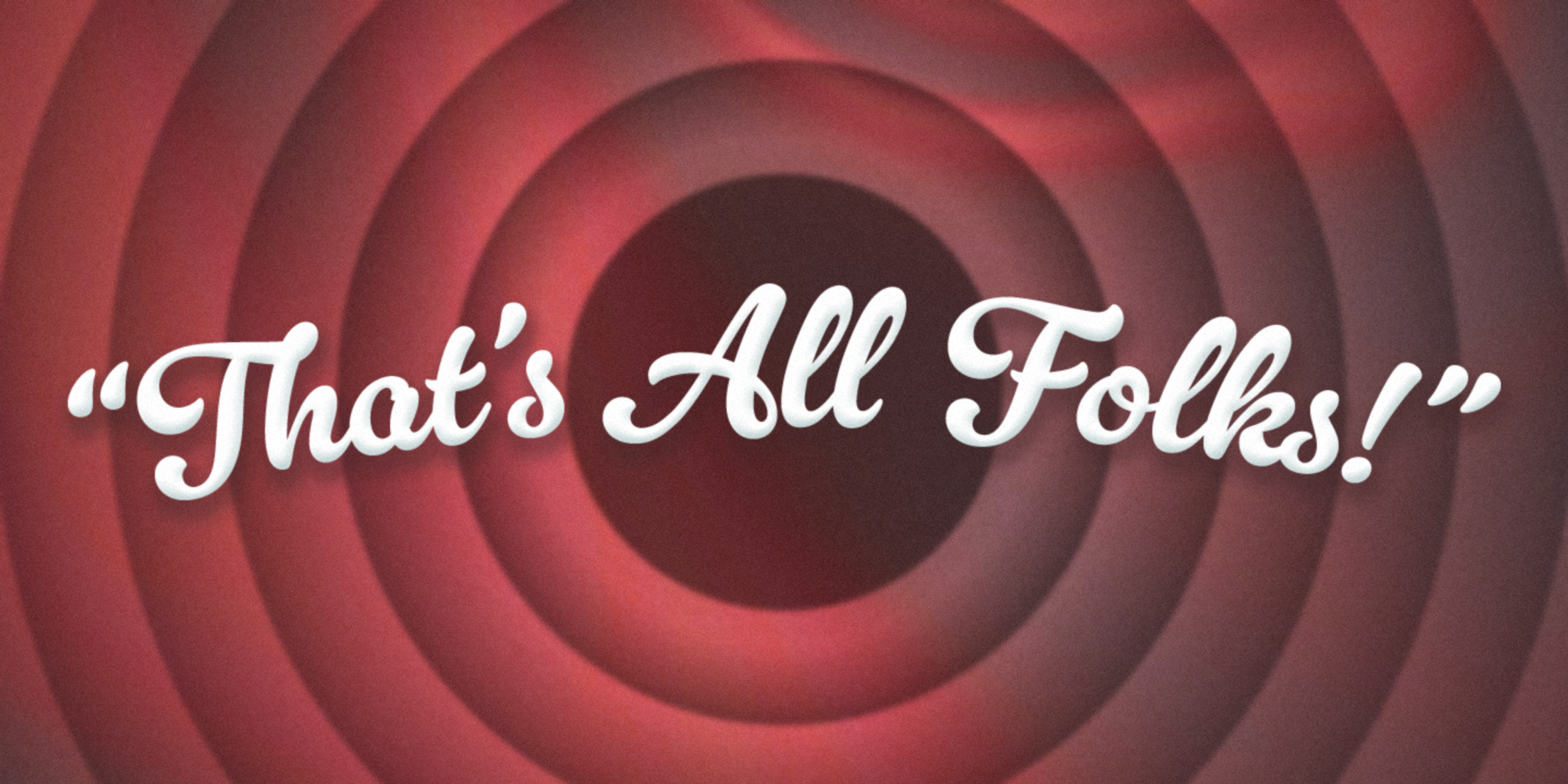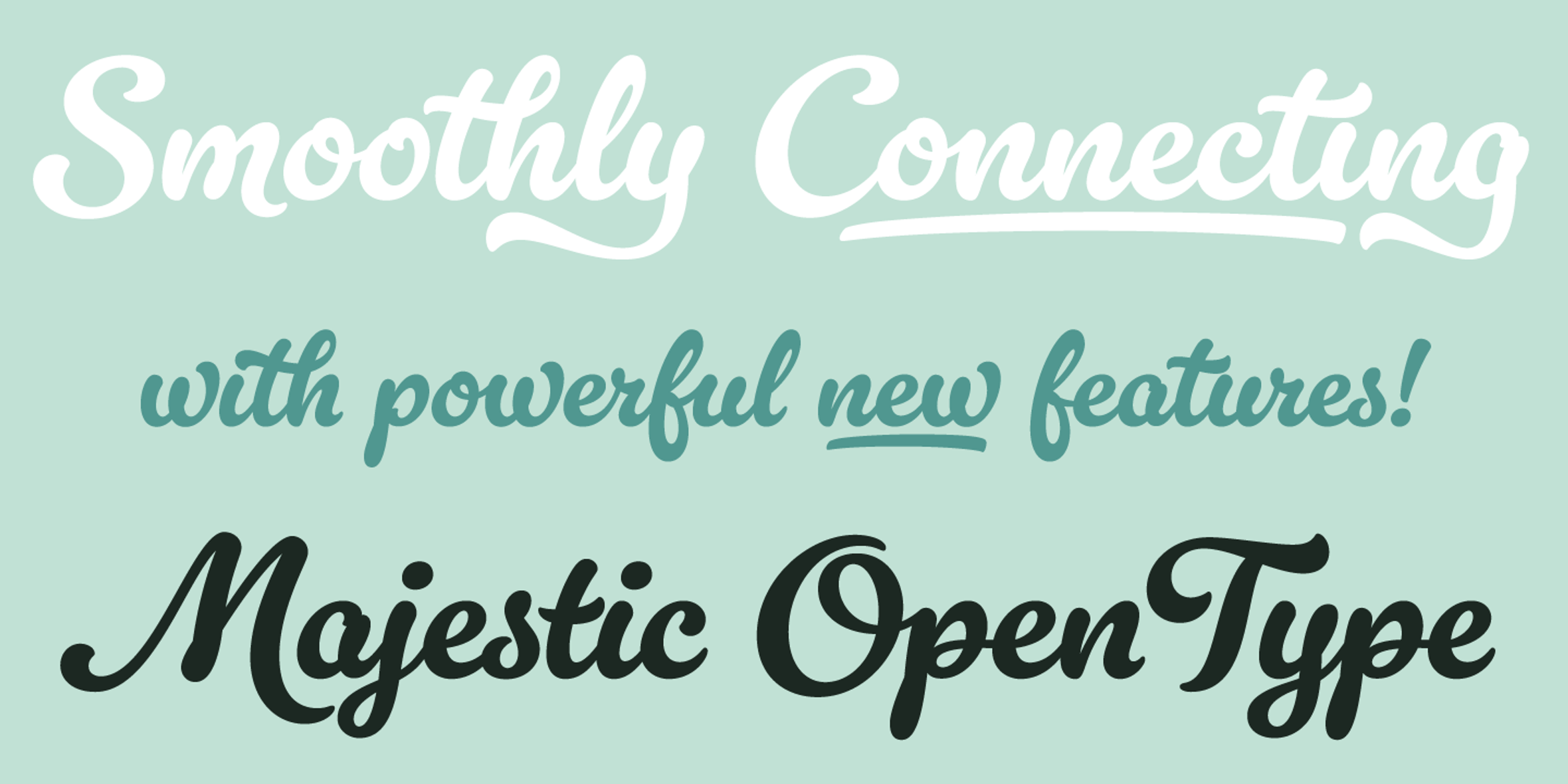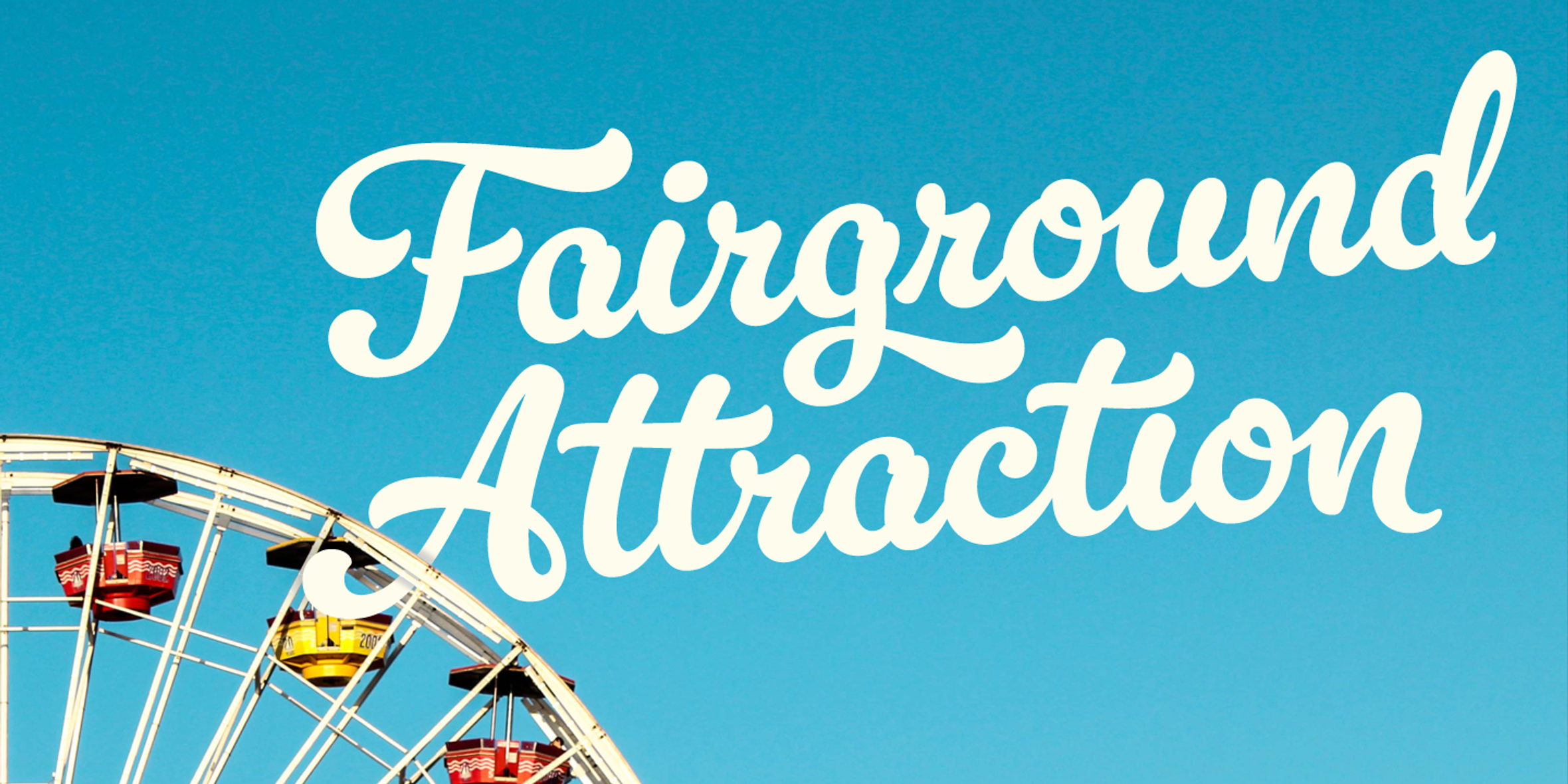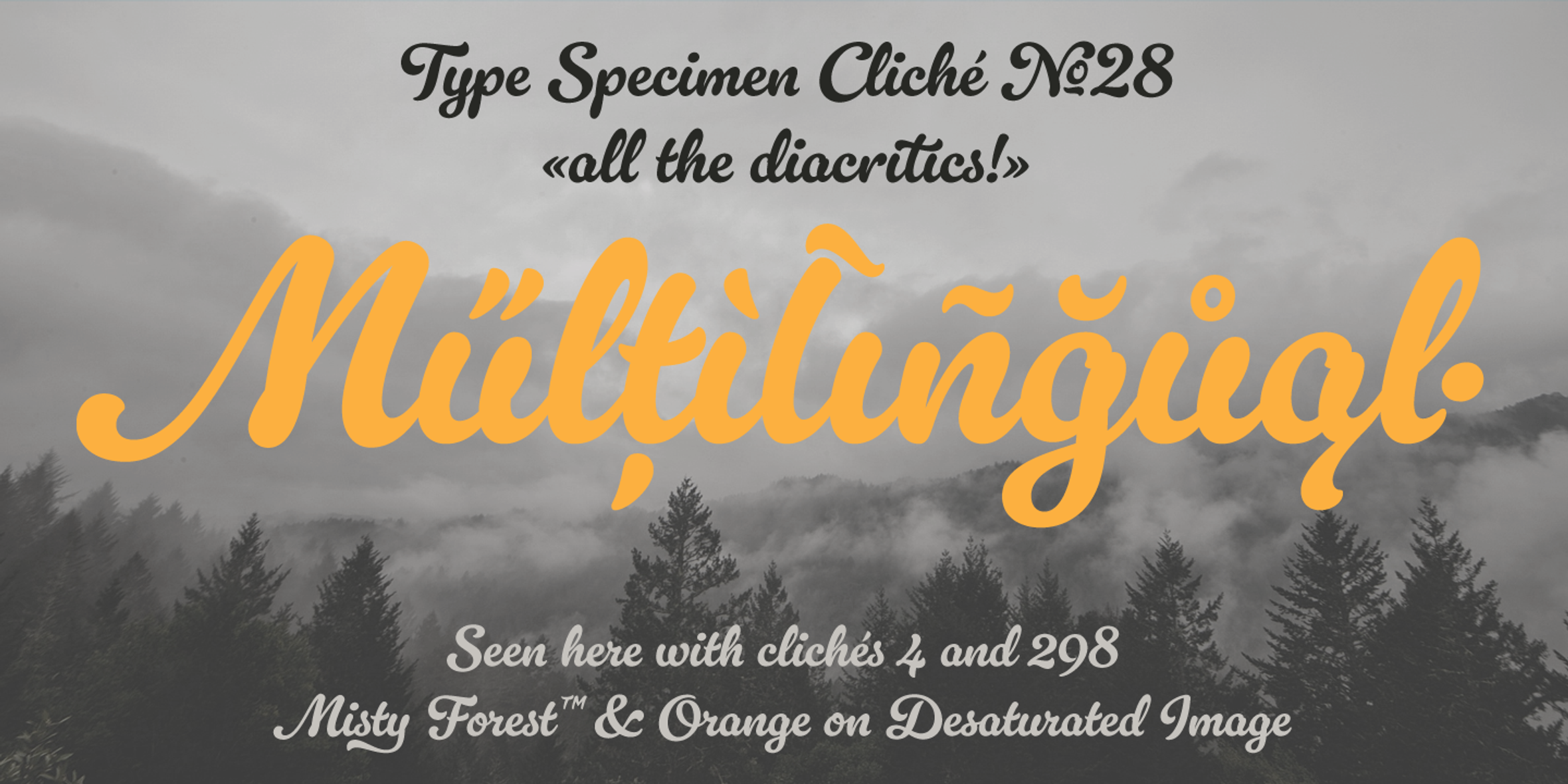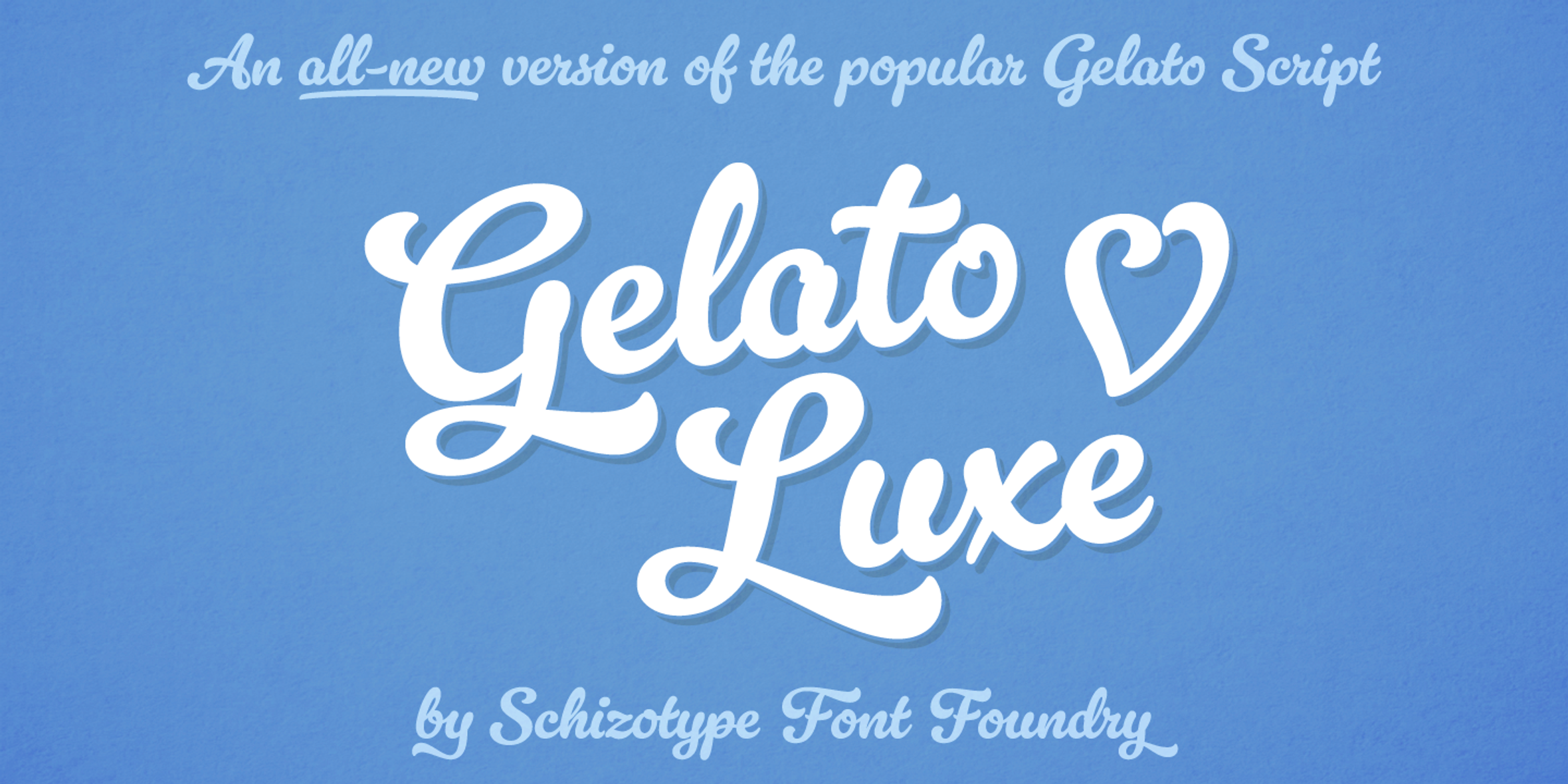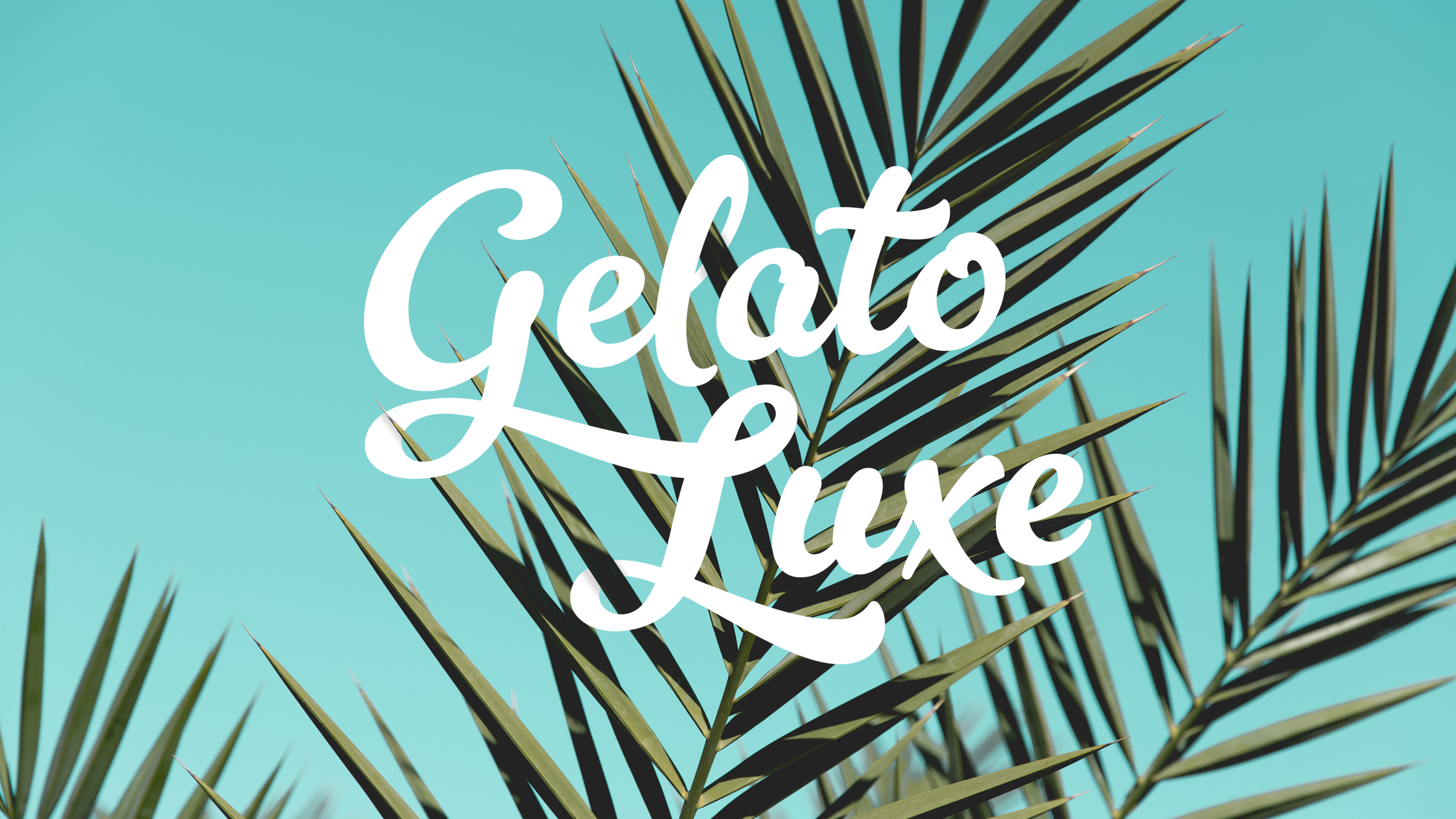
Gelato Luxe Font
Gelato Luxe is a brush-style script family first created in 2011 as the popular Gelato Script. What was always typographically refined and versatile has reached new usability levels with six weights. From the start, this design has graced everything from designer handbags to prime-time TV shows, food blogs, wedding invitations, glossy magazines, and ice cream shops. You can effortlessly change the feel with the many features available, and it will work like a charm right out of the box.
- Common Ligatures
- Discretionary Ligatures
- Old Style Numerals
- Ordinal Numerals
- Ornaments
- Stylistic Alternates
- Superscript
- Swashes